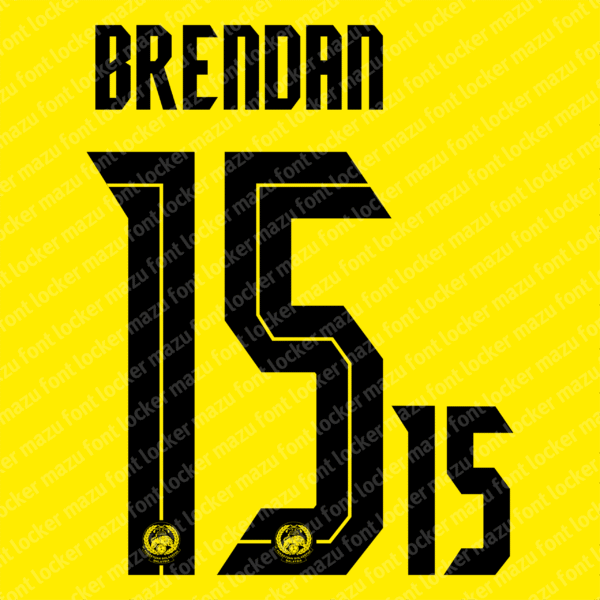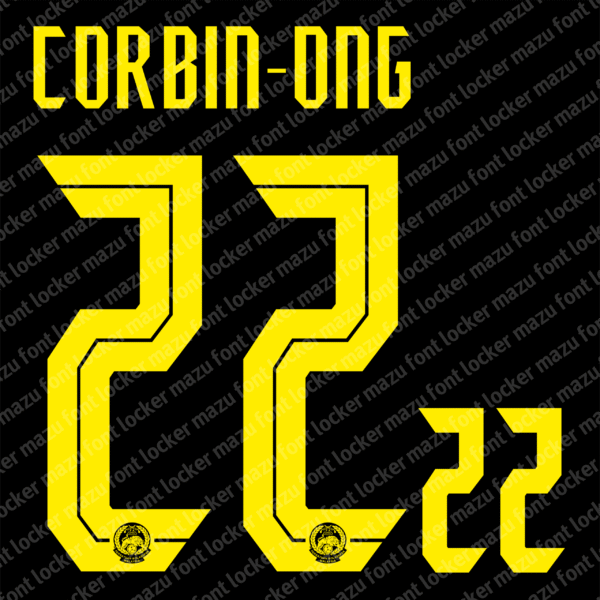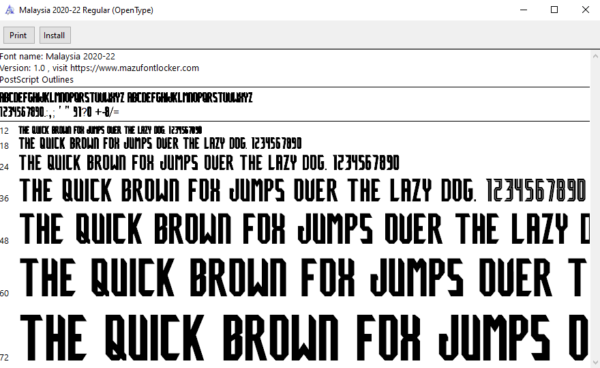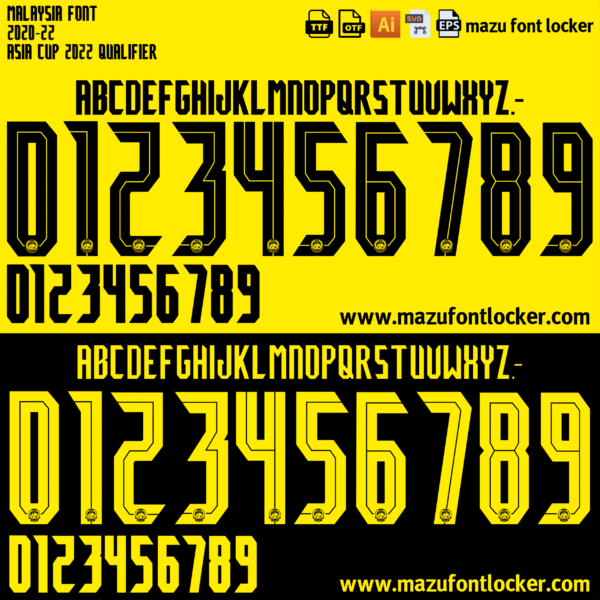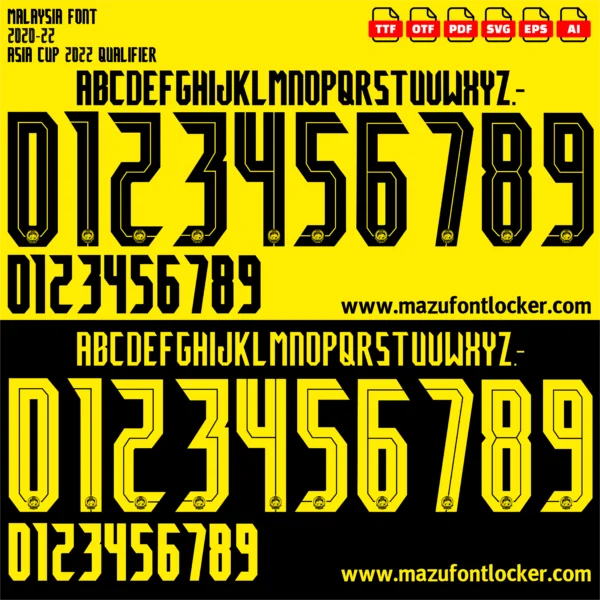
Malaysia 2020-2022 Font Vector – Epic Harimau Malaya Masterpiece
This premium font captures the commanding, majestic, iron-willed war-machine lettering that embodies the unstoppable Harimau spirit — delivering raw Malaysian fire, explosive national pride, unbreakable resilience, tactical dominance, and legendary warrior grit that made the region tremble.
Malaysia 2020-2022 Font Vector – Authentic Harimau Malaya Typeface
The Malaysia 2020-2022 Font Vector is a premium typeface that accurately recreates the official match lettering worn by the Malaysia national team during the 2020–2022 campaign. This high-quality vector font kit captures the bold, energetic, and patriotic typography that represents the pride, passion, and rich football heritage of Harimau Malaya.
Designed for professional designers and passionate Malaysia fans, the Malaysia 2020-2022 Font Vector delivers perfect authenticity for creating realistic jersey mockups, fan merchandise, matchday posters, social media graphics, and Malaysian football content. It pairs beautifully with the iconic red, yellow, and black kits featuring the famous Harimau Malaya crest.
Why Choose Malaysia 2020-2022 Font Vector
This font stands out because of its sharp vector precision and strong national identity. Every letter and number is crafted to match the exact style used on the players’ shirts during the 2020-2022 seasons. Whether you are making realistic kit templates or exciting Harimau Malaya content, the Malaysia 2020-2022 Font Vector gives your designs that authentic Malaysian look.
The letterforms in the Malaysia 2020-2022 Font Vector are tall, bold, and highly readable. The strokes have a strong, clean weight with excellent edge definition that looks powerful on the back of jerseys while maintaining classic Malaysian spirit and modern strength.
• Full uppercase A–Z and numbers 0–9 in authentic Malaysia 2020-2022 style
• Create highly realistic Malaysia 2020-2022 home and away jersey mockups with accurate lettering
Malaysia 2020-2022 Campaign
The 2020–2022 period saw Harimau Malaya compete with renewed ambition in international competitions and AFF Championships. Malaysia delivered passionate performances, showcasing growing technical skill, tactical discipline, and the fighting spirit that defines Malaysian football.
A mix of veteran stars and emerging local talents united to create memorable moments for the nation. This era strengthened Malaysia’s reputation as a competitive force in Southeast Asia and the AFC region.